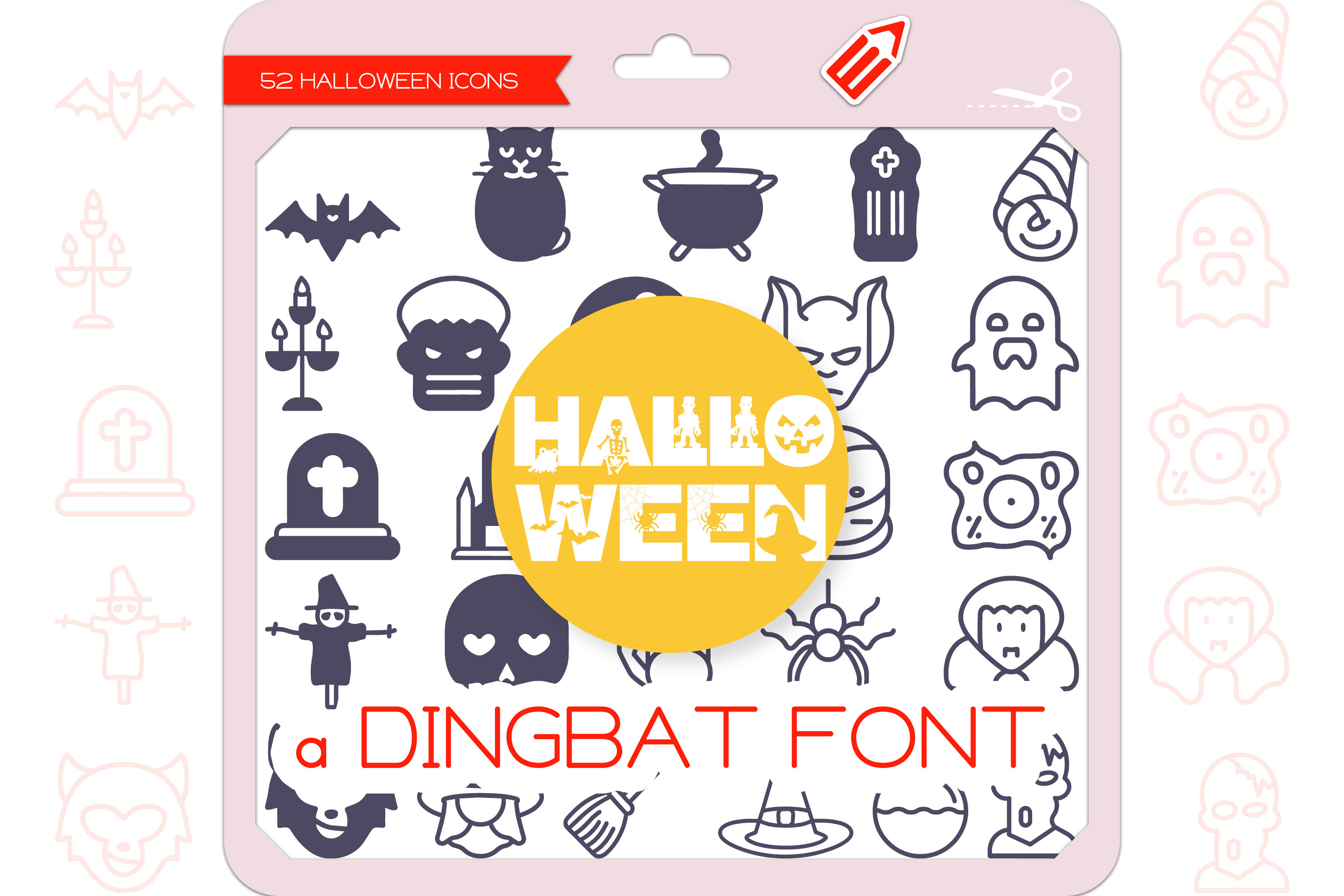
Halloween Icons - Dingbat Font
Halloween is a unique and cute dingbat font. It contains 52 icons in 2 styles (Outline & Filled-Outline). Add this font to your creative ideas and make your arts outstanding!
The Halloween Icons Dingbat Font featuring 26 things Bat, Black Cat, Cauldron, Coffin, Candy Corn, Candles, Frankenstein's Monster, Full Moon, Gargoyle, Ghost, Gravestone, Haunted House, Jack-o'-Lantern, Mummy, Ouija Board, Scarecrow, Skeleton, Skeleton Hand, Spider, Vampire, Werewolf, Witch, Witch's Broom, Witch's Hat, Witch's Potion, Zombie